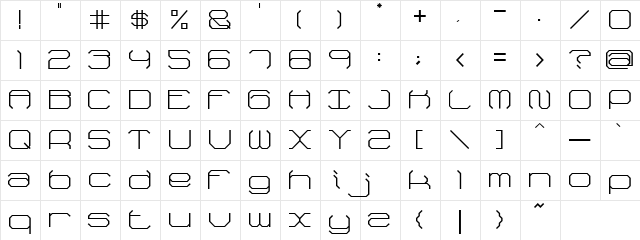
Fh_Reverse Regular
| Foundry | Dan Meyer (Fictionalhead) |
| Designer | Dan Meyer (Fictionalhead) |
Design Context for Fh_Reverse Typeface
Fh_Reverse offers clean, dependable letterforms without strong stylistic allegiance, making it a practical choice for designers who need flexibility.